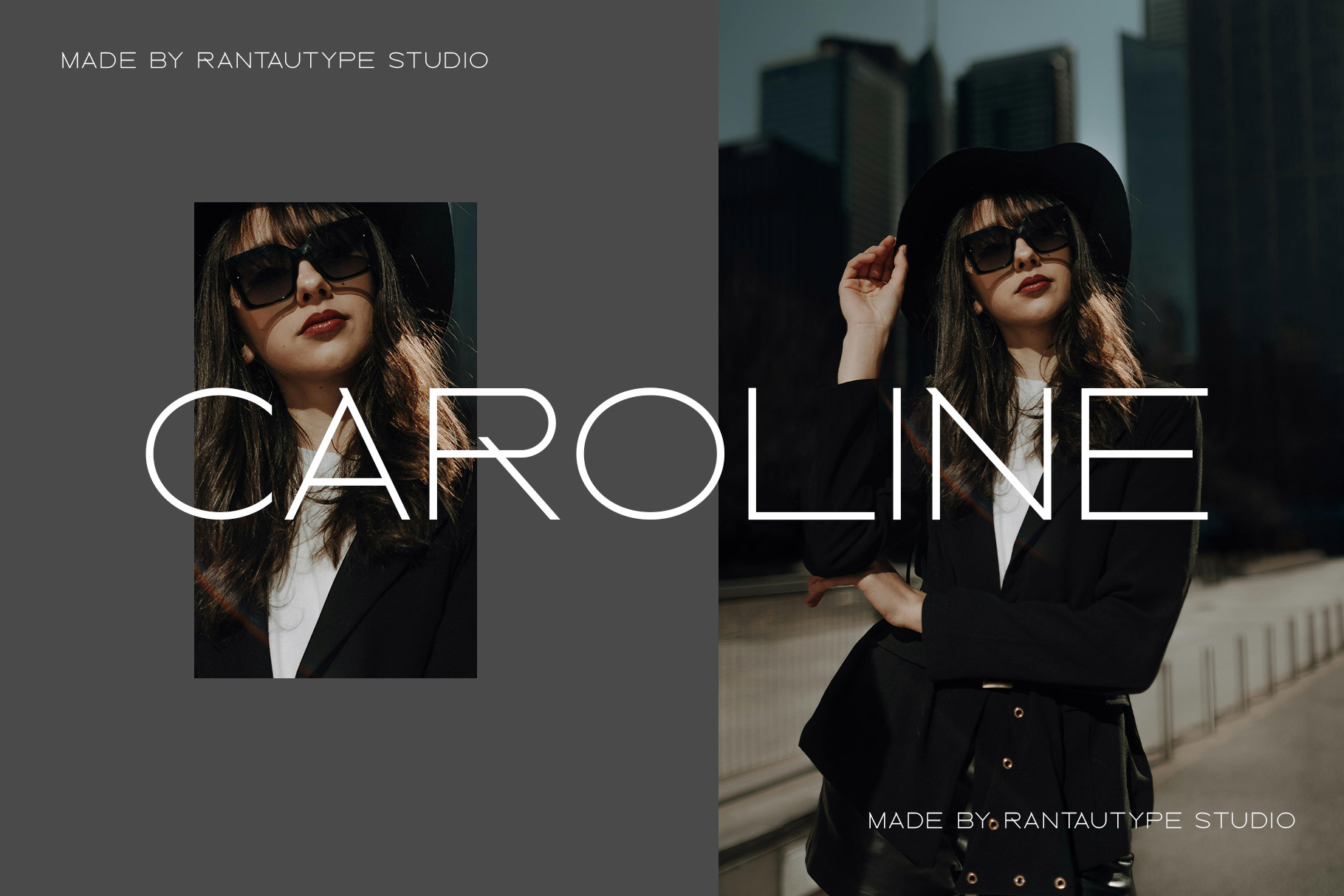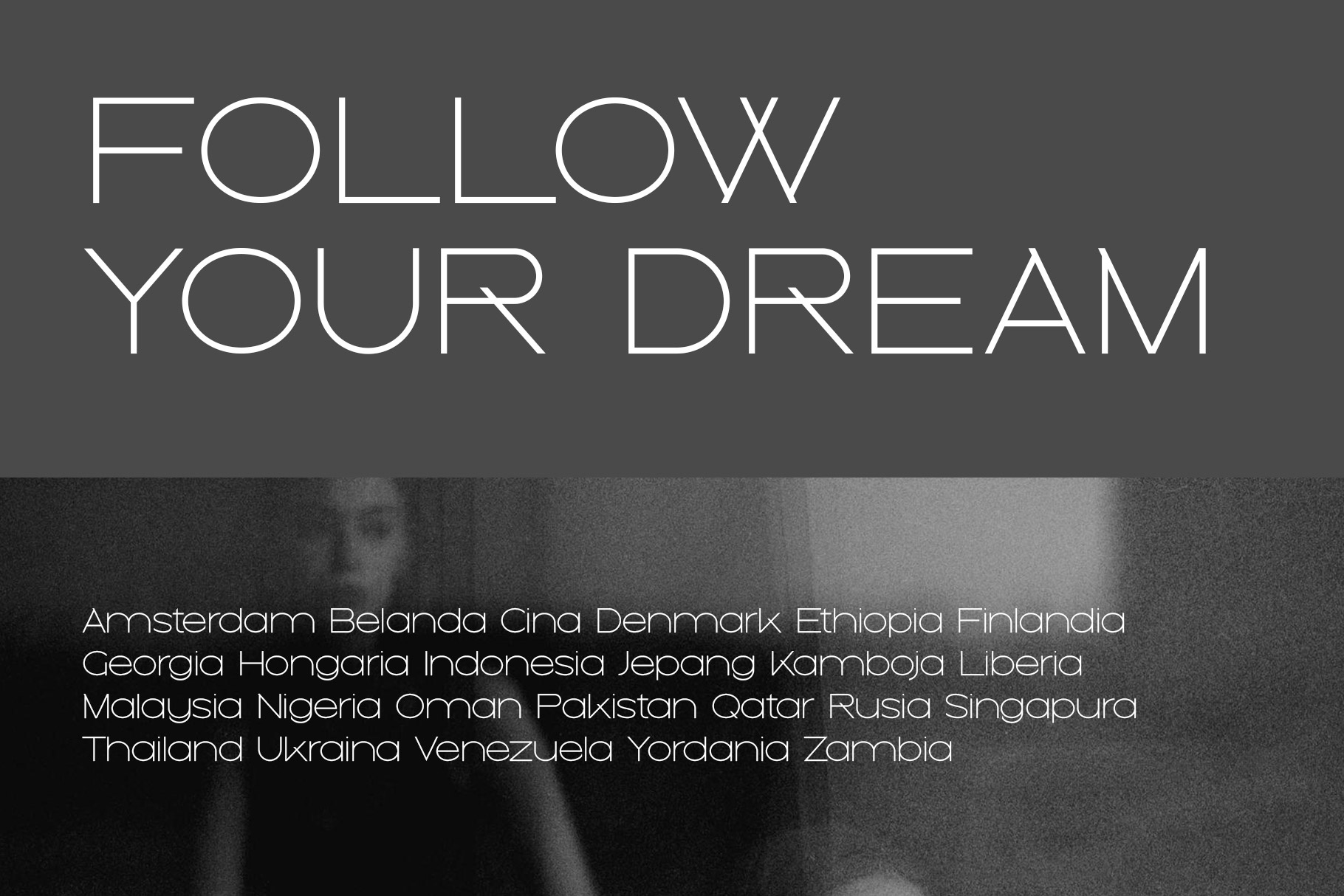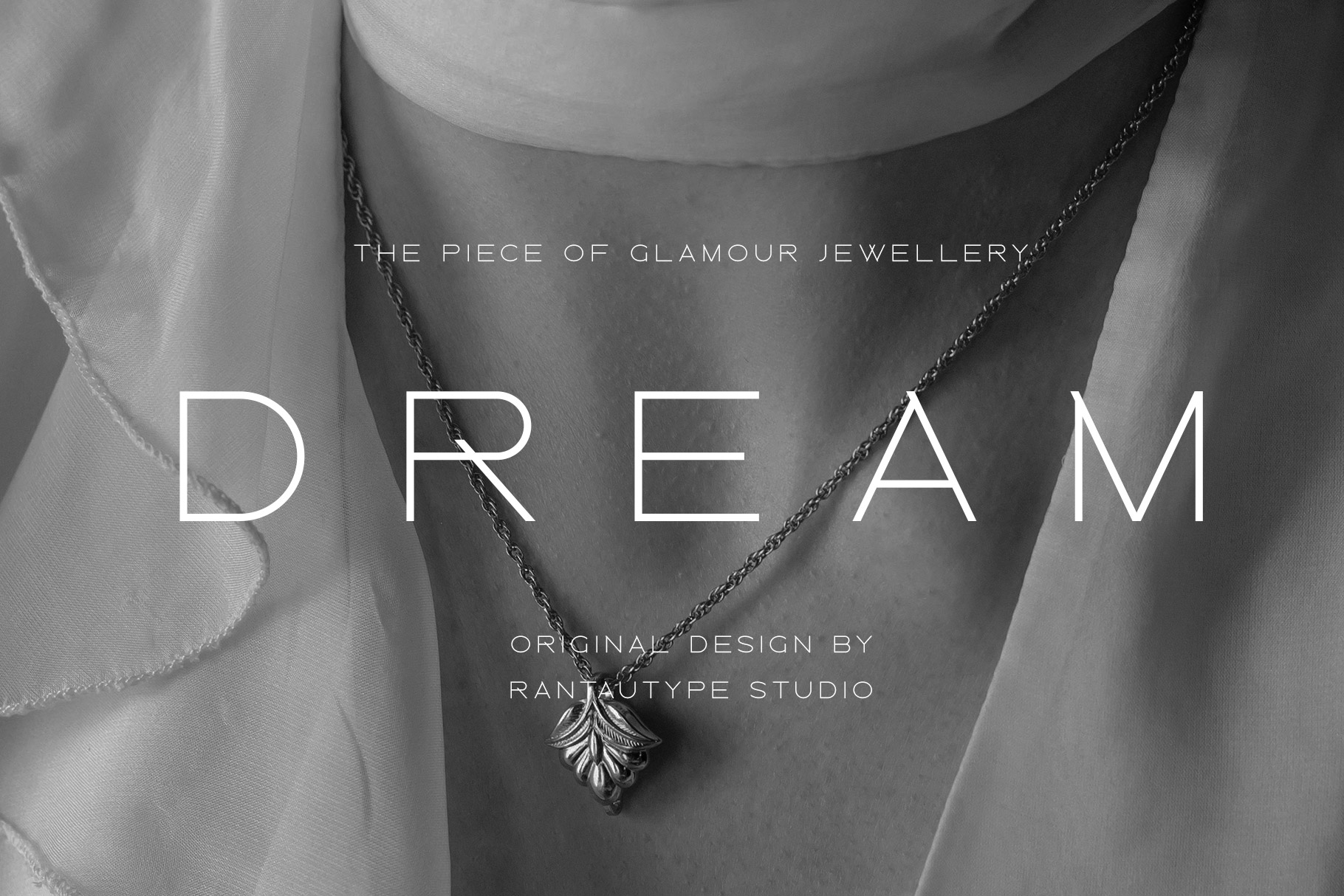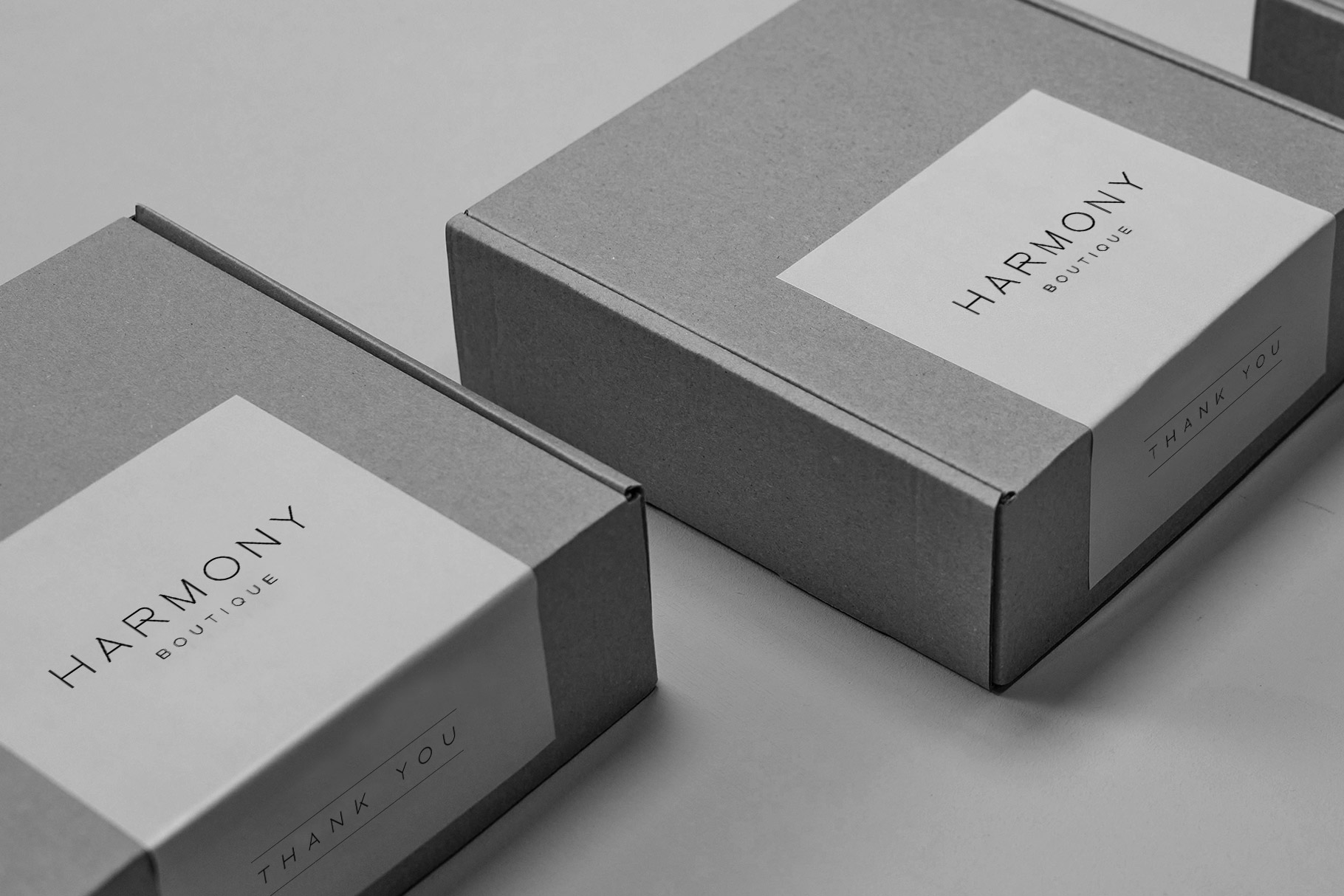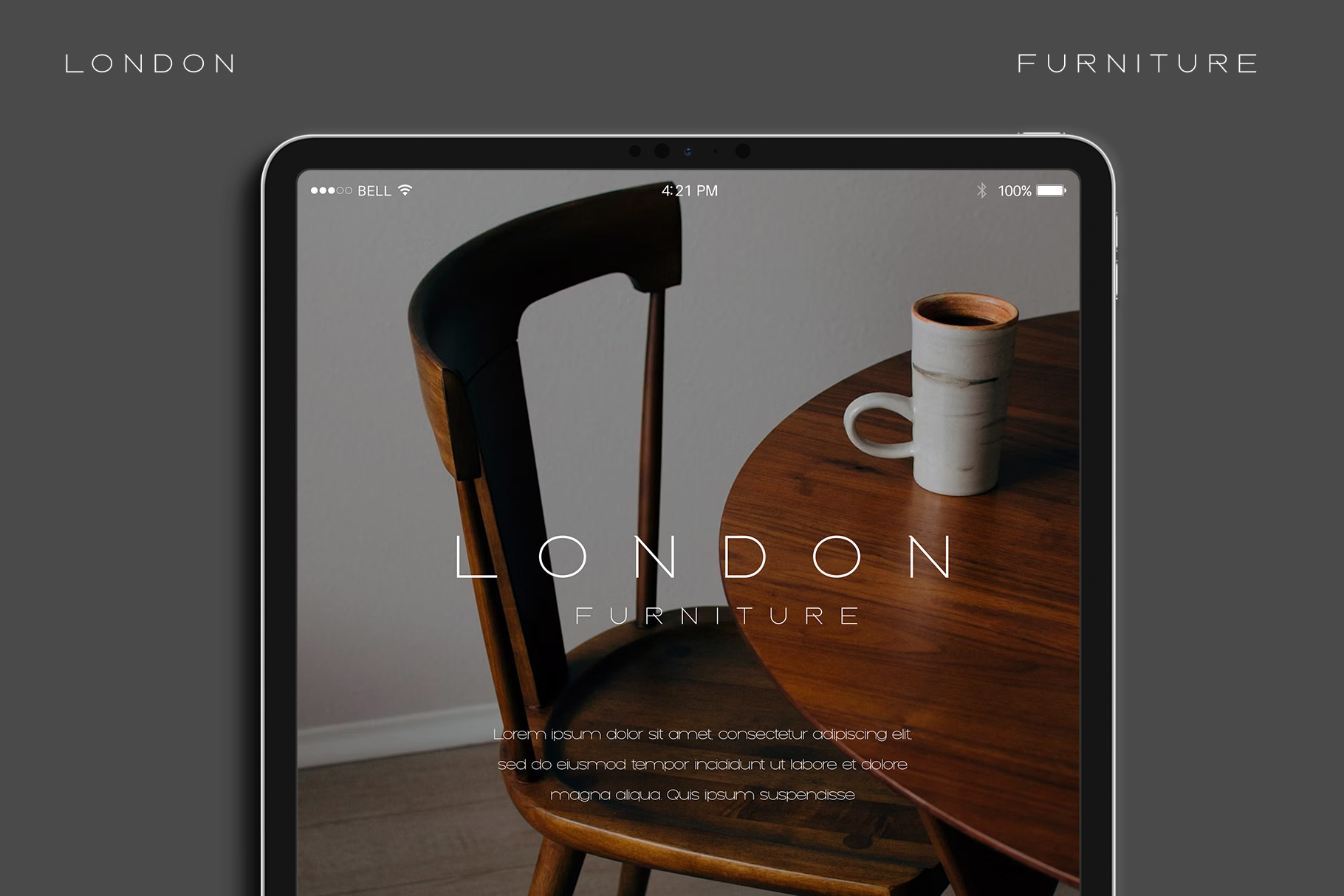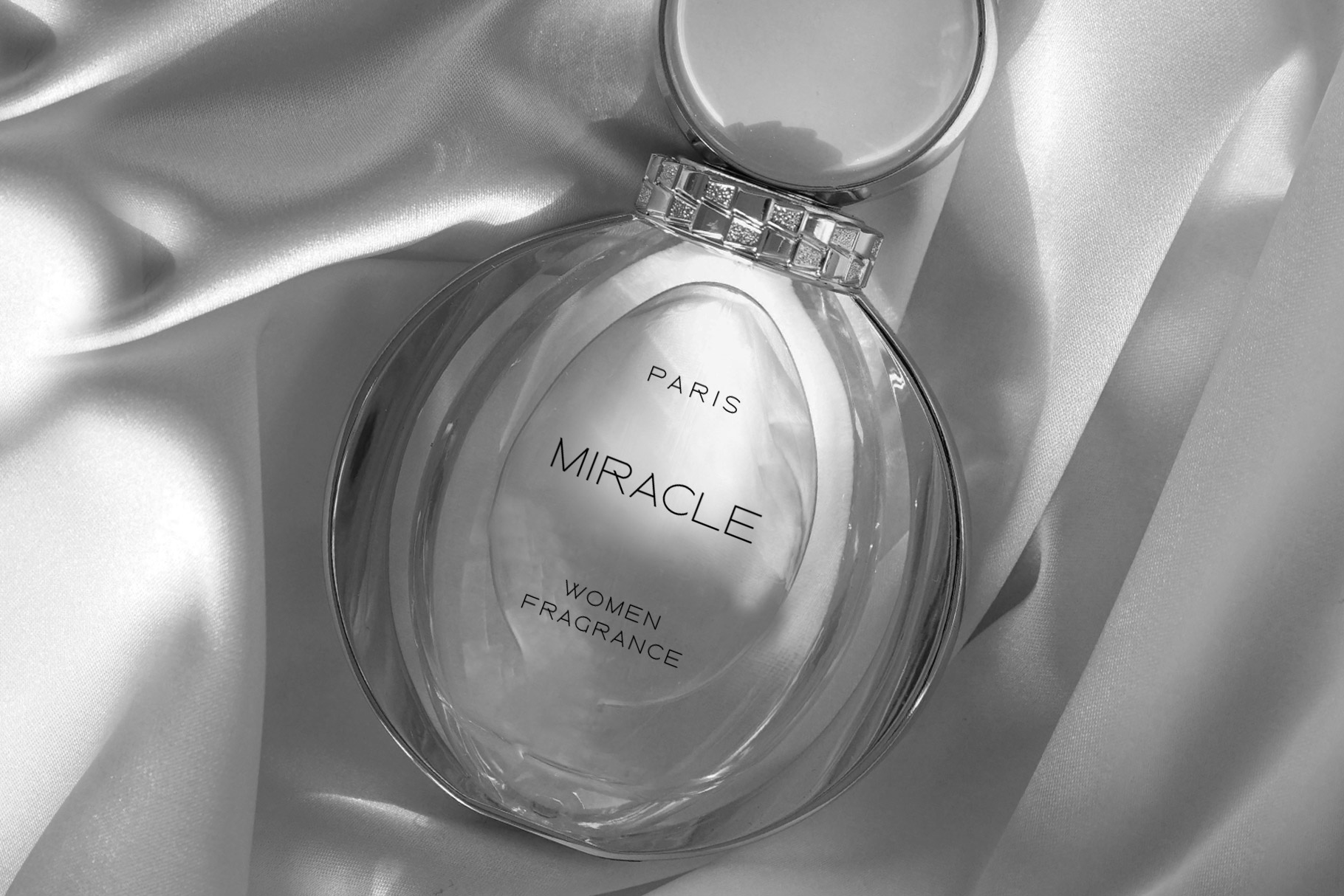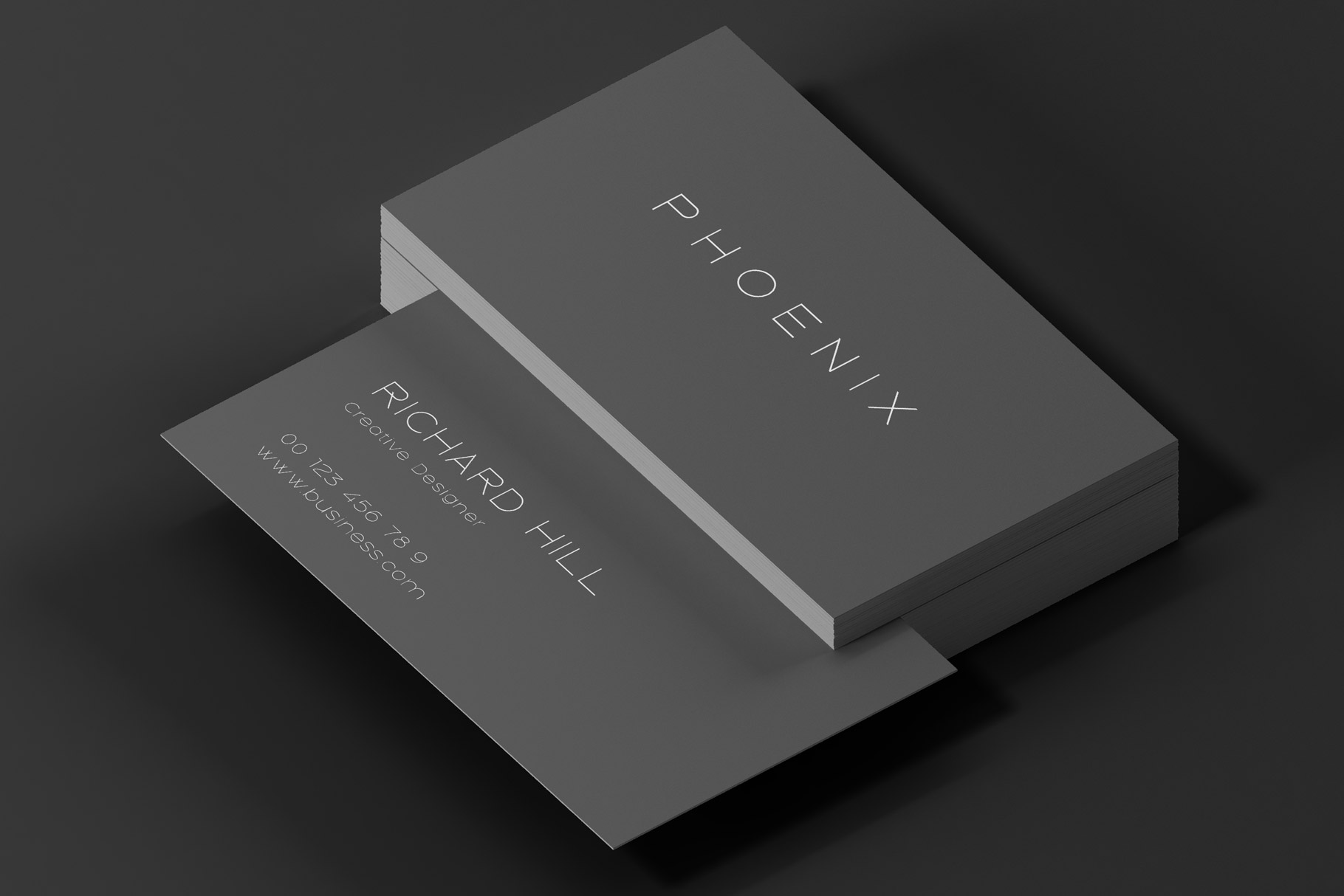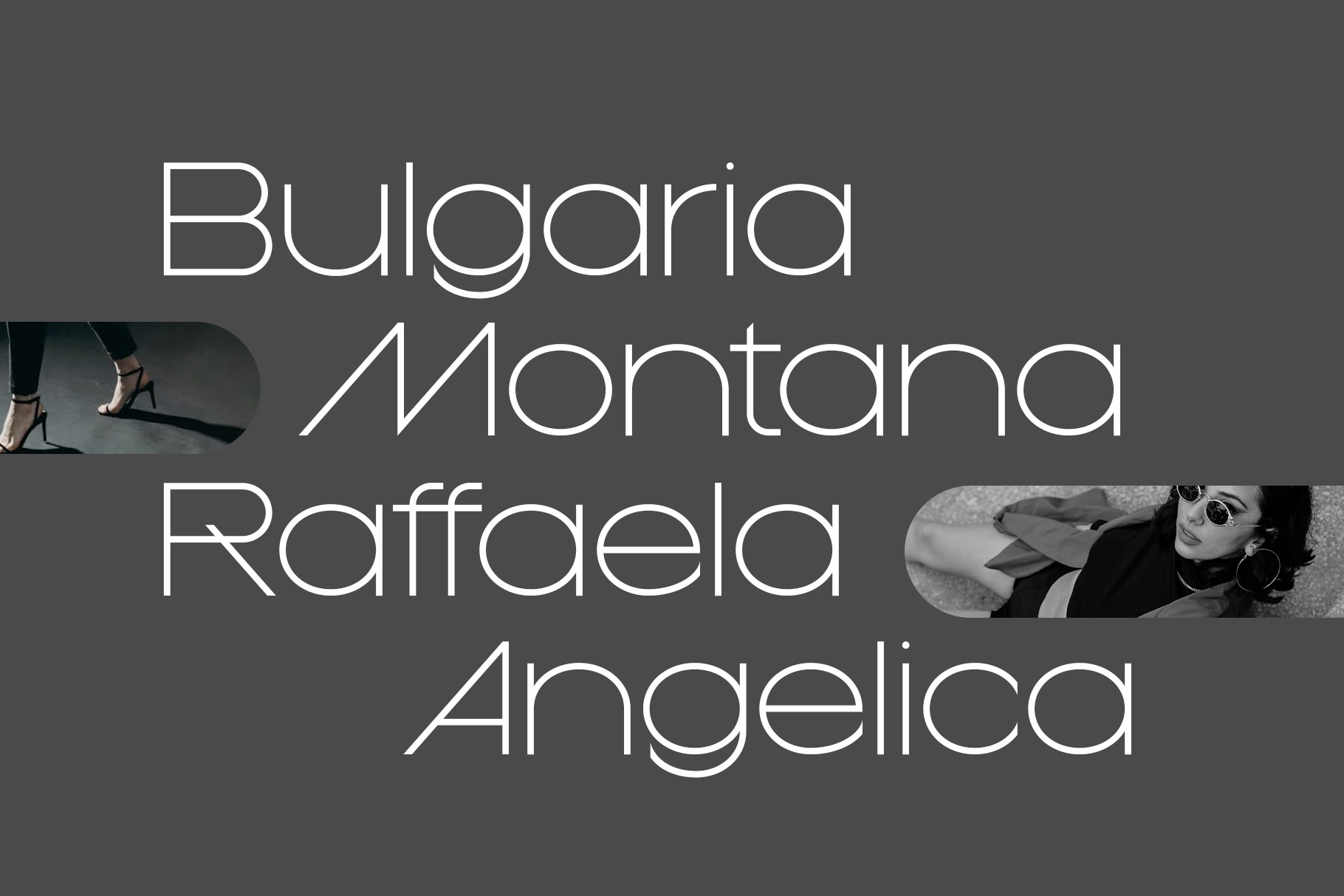
Kavora Display Sans Font
Kavora is display sans serif font with modern and minimalist look. Kavora come with thin shape make your brand more elegant. Kavora is a perfectly choice for any creative endeavor, chic, lifestyle design such as logotype, advertisements, watermark on photography, stationery, branding project, display and magazine, invitation, corporate brand, product design, label, business project and many other project with modern or elegant touch.